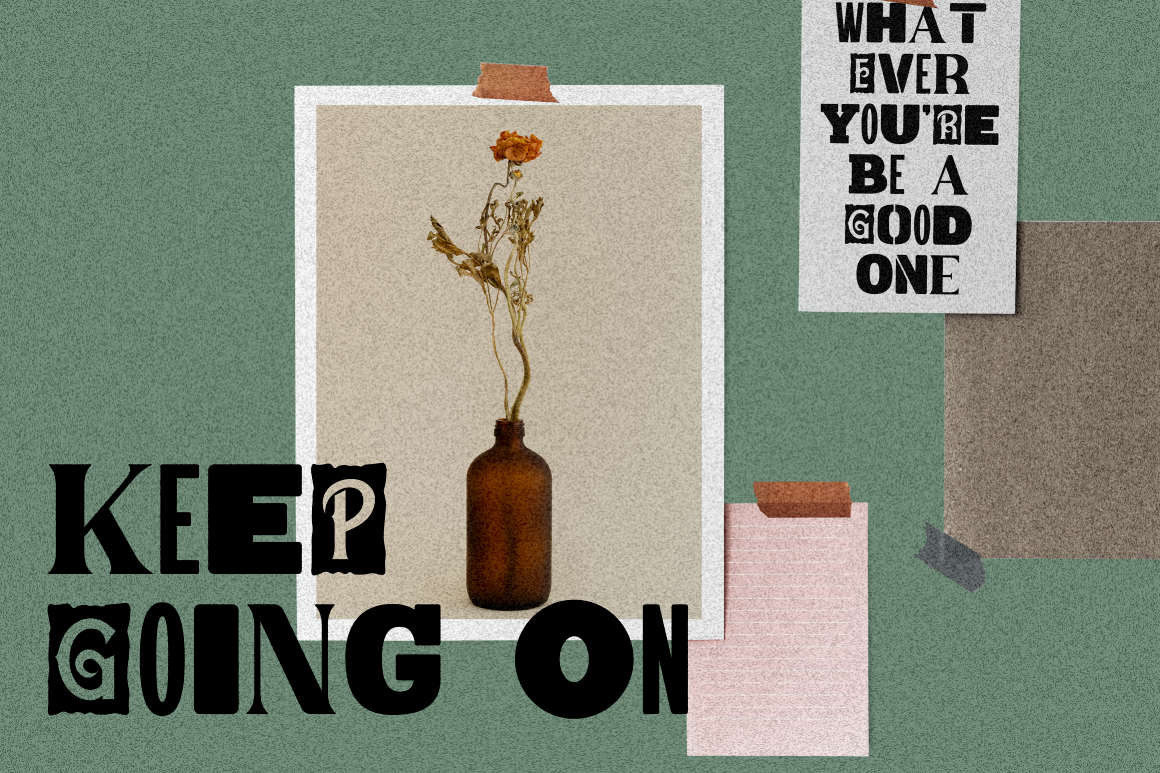
In the fast-evolving world of graphic design, standing out from the crowd is crucial, and fonts play an essential role in achieving that. Fonts help define a brand’s identity, convey its message, and set the tone for all visual content. However, as design trends evolve, there’s a growing need for unique fonts that break from conventional styles and push the boundaries of creativity. The best unique fonts for graphic design in 2025 are those that offer fresh takes on typography, whether for advertising, branding, or promotion. These fonts not only capture attention but also reflect a brand’s individuality. In this article, we will explore the most standout fonts that are shaking up the design scene, highlighting their strengths, weaknesses, and practical applications.
Garden Whirl: Bringing Nature into Design with Playful Swirls
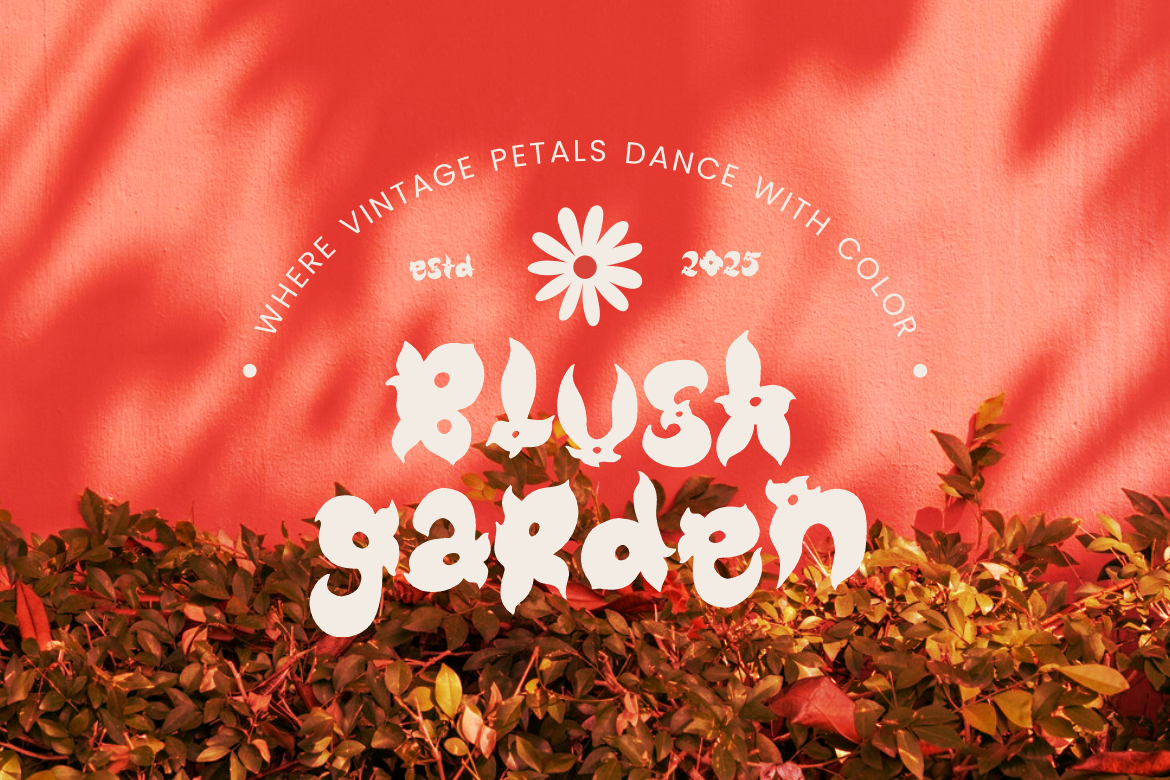
Garden Whirl Display Font is an eye-catching font that offers a perfect blend of whimsy and organic design. Its playful swirls and natural curves make it ideal for projects that need a creative, nature-inspired touch. Whether you’re working on eco-friendly branding, product packaging, or advertisements, this font helps convey a sense of movement and growth. Its uniqueness lies in the way it incorporates fluid forms that resemble the delicate patterns of nature. However, Garden Whirl may not be suitable for every design, especially those that require a clean or minimalist look. Its ornate style might overwhelm more sophisticated designs, making it best for youthful and dynamic branding.
Cyber Aliens: A Futuristic Font for Bold Designs
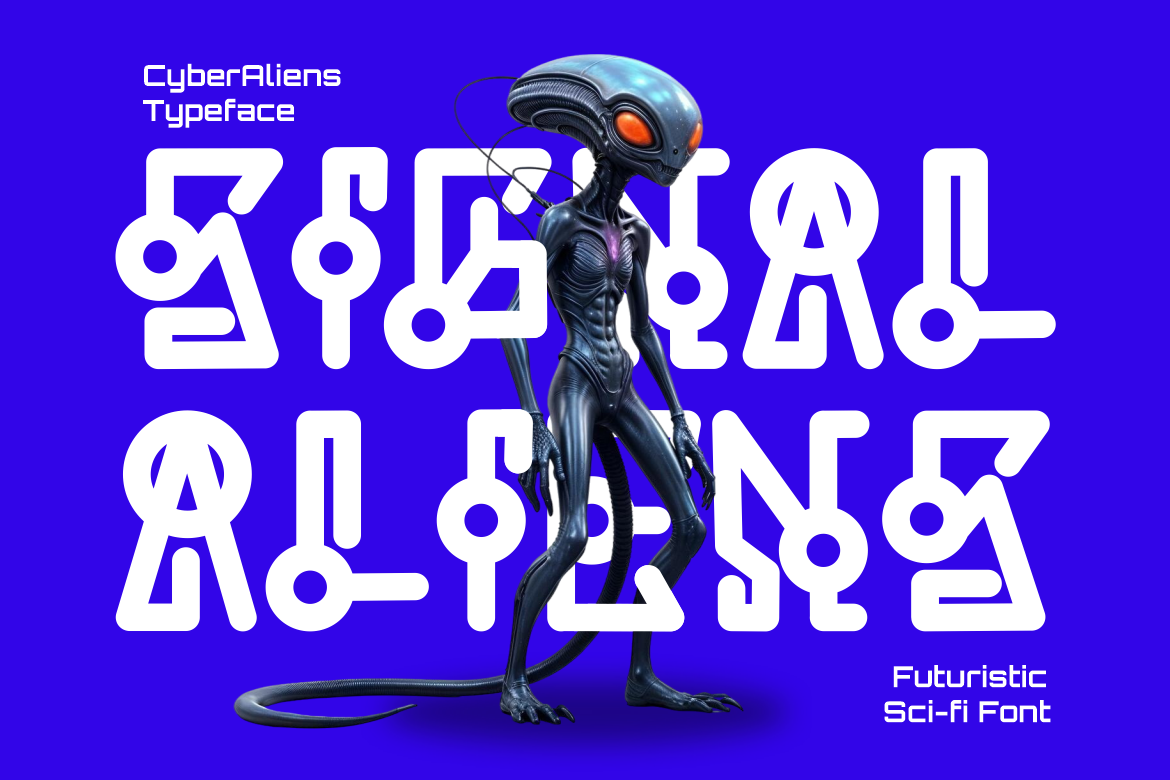
In the realm of sci-fi and technology, Cyber Aliens offers a unique, bold approach to futuristic typography. This font’s sharp angles and dynamic shapes make it perfect for cyberpunk-themed projects, gaming branding, or high-tech companies. Its bold presence demands attention, making it ideal for motion graphics or dynamic logos. Cyber Aliens brings an otherworldly feel to any design, making it perfect for advertisements that want to push the boundaries of what’s possible in design. However, its complex structure may not work well for projects that require clarity or simplicity. For more refined or professional designs, this font may feel too aggressive or distracting.
Ancient Legend: Tribal and Nomadic Inspired Typography
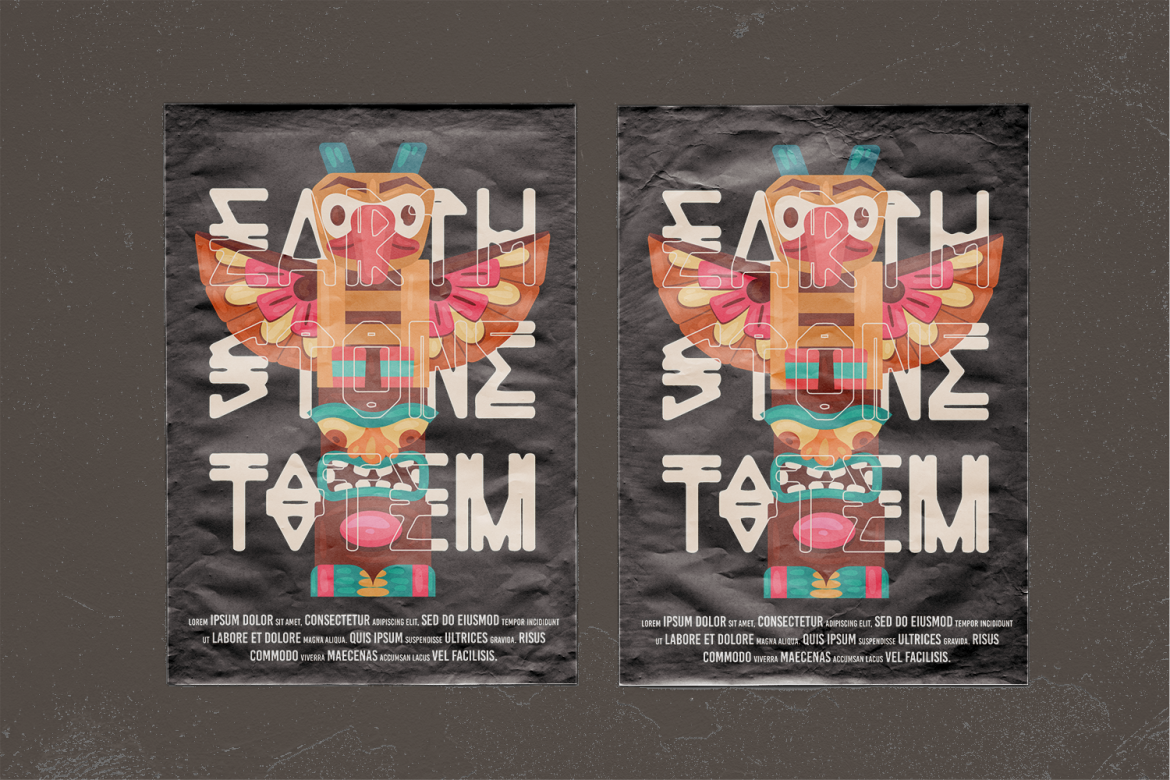
For designs that evoke heritage, history, and culture, Ancient Legend stands out as one of the best unique fonts for graphic design. This font draws inspiration from tribal patterns and nomadic cultures, making it ideal for adventure brands, artisan products, or ethnic-themed designs. Its intricate details and distinctive shapes make it perfect for book covers, logos, and branding in the fashion or artisanal sectors. The strength of Ancient Legend lies in its rich storytelling potential, adding a layer of depth to designs. However, the complexity of the font might not be suitable for designs that need simplicity or ease of readability. It’s best used for projects that aim to communicate authenticity and heritage.
Nebula Avenue: The Fusion of Techno and Brush Styles
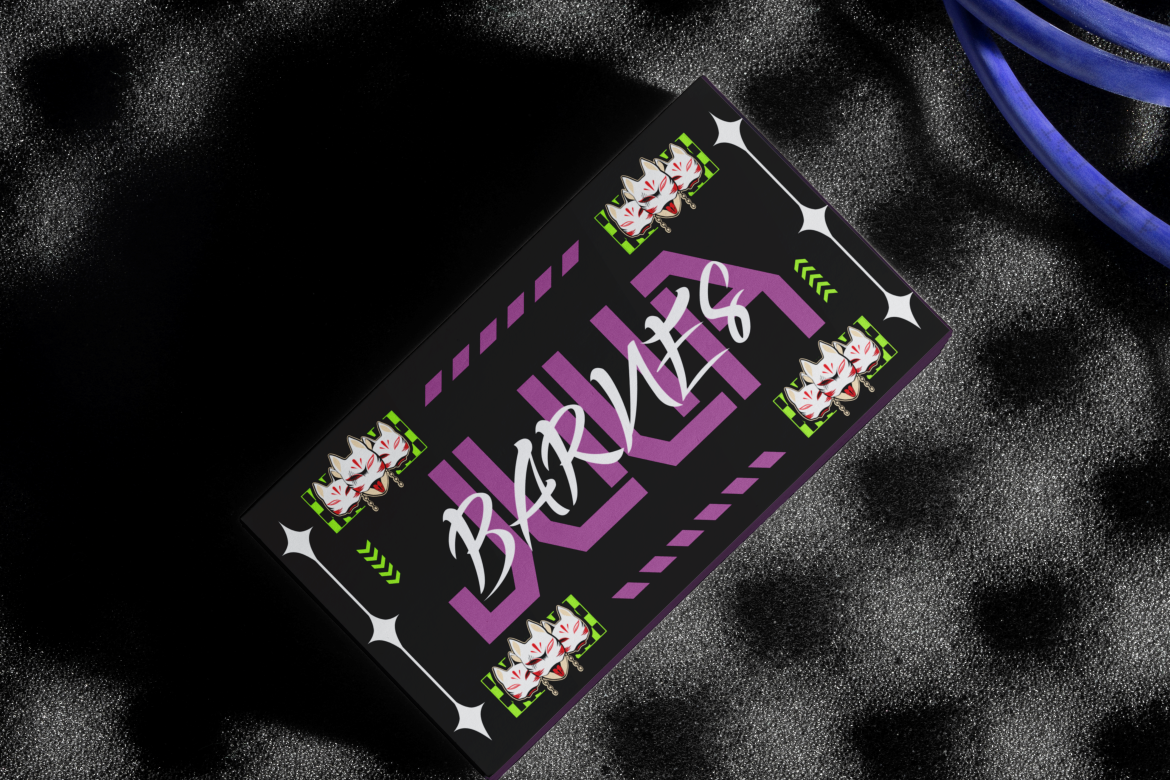
Nebula Avenue Duo combines two seemingly disparate styles: techno and brush strokes. This fusion font is perfect for designs that require a futuristic yet artistic touch. Whether for digital marketing, music promotions, or video game branding, Nebula Avenue offers flexibility in creating eye-catching visuals. Its brush-inspired letters bring a level of creativity, while its techno forms ground the font in modernity. This versatility makes it great for animated logos or motion graphics that demand both movement and sharpness. However, the combination of these two styles might make Nebula Avenue difficult to pair with more traditional fonts, making it less suitable for corporate or professional designs.
Funky Form: Isometric Design with Geometric Precision
Funky Form is a geometric isometric font that brings an angular, architectural feel to designs. It’s ideal for projects that need a modern, bold font that stands out with sharp lines and clean structures. Funky Form is great for tech companies, futuristic branding, or video game graphics that require a strong, mathematical structure to communicate precision and clarity. Its isometric nature makes it excellent for 3D renderings or interactive designs. However, it may not be ideal for designs that require a more organic or free-flowing font. Its rigidity could clash with more fluid design elements, making it more suitable for structured projects rather than creative, open-ended designs.
Spectrum Spiral: A Retro Font with a Wave of Vibrancy
If you’re looking for a font that adds a retro flair to your design, Spectrum Spiral is a perfect fit. This wave-like font captures the essence of the 1980s with its bold curves and vibrant colors. It’s ideal for retro-style animations, album covers, or advertising campaigns that aim to evoke nostalgia and energy. Its dynamic lines and geometric shapes make it perfect for youth-oriented brands, especially those in the music or entertainment industries. However, Spectrum Spiral may not be suitable for designs that require a clean, minimalist aesthetic. Its bold nature might overwhelm simpler branding, so it’s best used when you want to convey fun and creativity.
Maple Story: A Soft, Welcoming Font for Cultural and Playful Designs
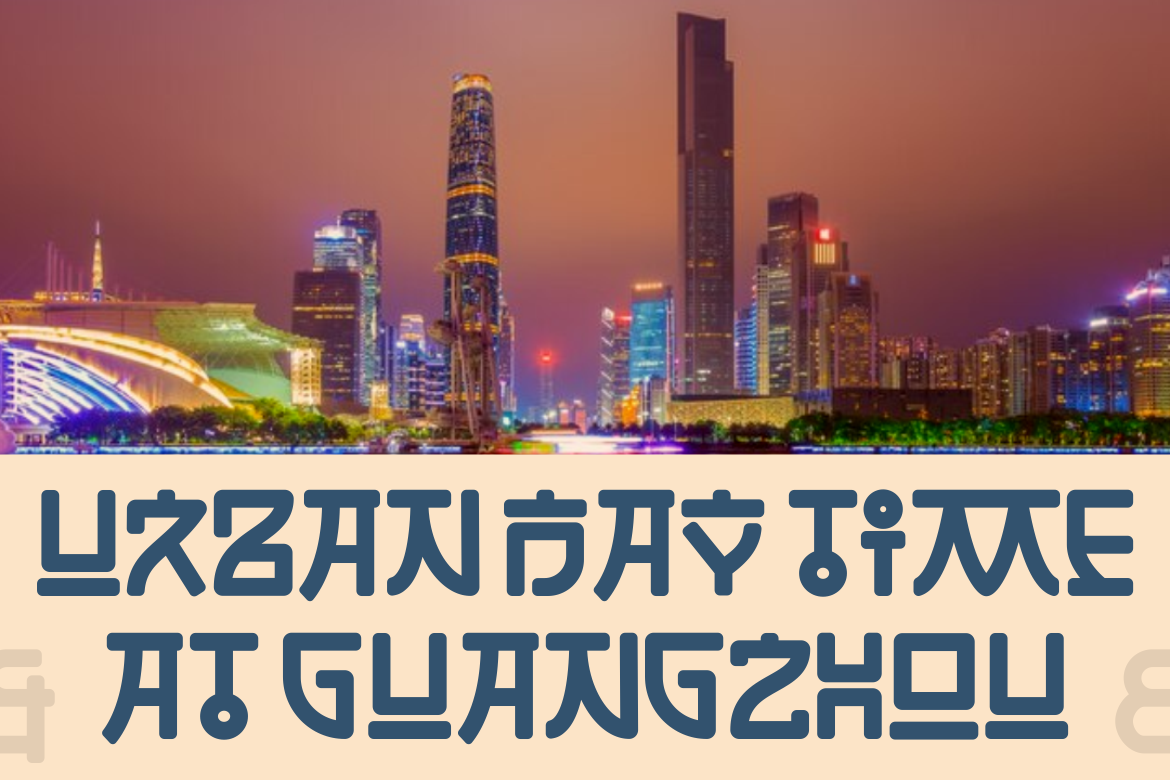
Maple Story offers a soft, rounded design that adds a sense of warmth and approachability to any project. Inspired by Korean design, this font is great for children’s content, youth branding, or anything requiring a friendly and inviting feel. The smooth, rounded edges of Maple Story make it perfect for animation titles, book covers, or interactive designs aimed at younger audiences. It works well in branding or promotions where a fun, playful touch is required. However, its informal style might not work for brands that need a more sophisticated or corporate identity. It’s best used in lighthearted or youth-oriented projects.
Enjoying Typeface: Modern Elegance with a Display Style
For projects requiring modern elegance, Enjoying Typeface provides the perfect blend of sleekness and visual appeal. Its clean, contemporary design makes it perfect for advertisements, book covers, or fashion branding. The font’s bold lines and sharp edges create a striking visual impact, making it suitable for both high-end brands and innovative startups. Enjoying Typeface is flexible and can be used in a variety of contexts, whether for logos, headlines, or social media graphics. However, its boldness may not be ideal for more subtle designs where elegance and minimalism are key.